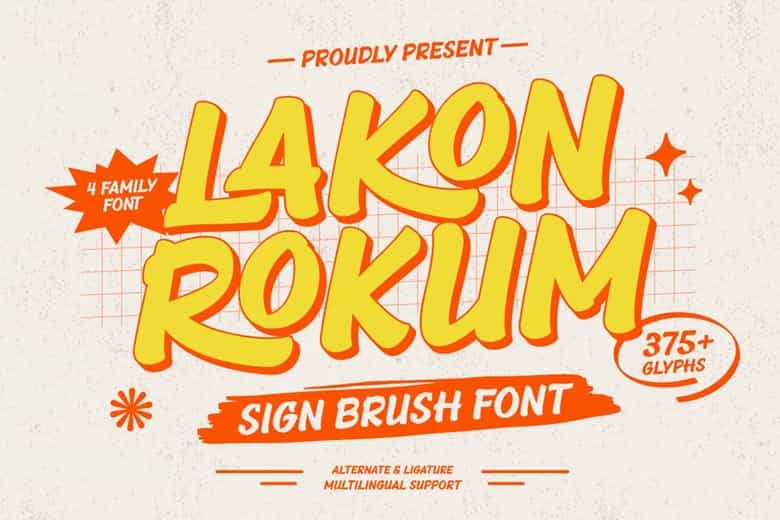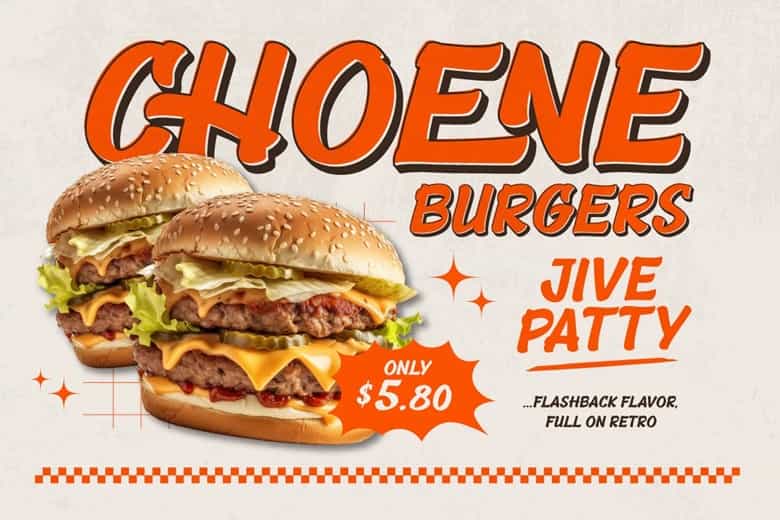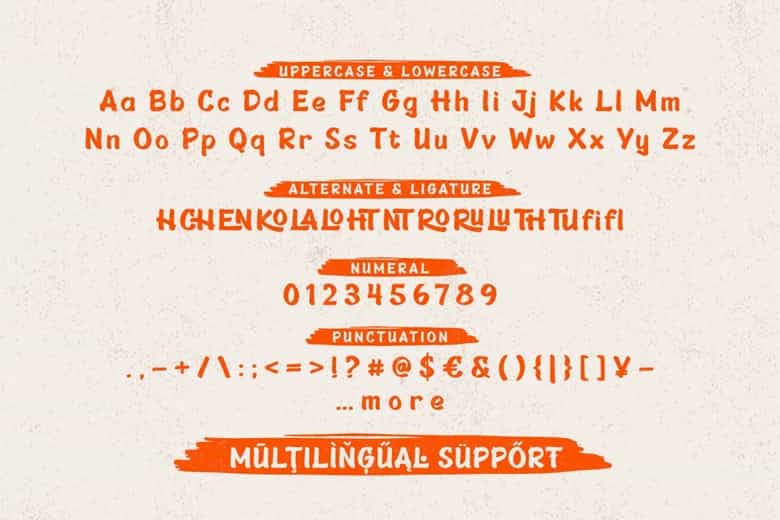
Lakon Rokum is an extrovert and graphic sign brush font with retro style of sign painting and hand-painted lettering in stores. Having four freely adaptable design varieties, including Regular, Slant, Shadow and Shadow Slant, the font provides unlimited creative opportunities in branding, posters, packaging or any other promotional printed documents requiring a firm and genuine personality.